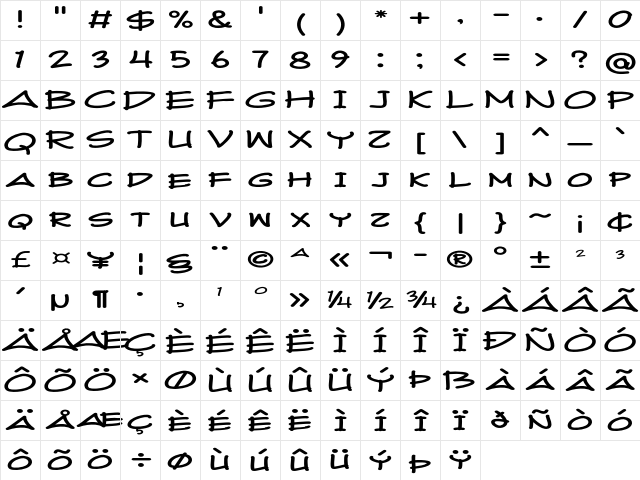
Fuki Maki Extra-expanded Regular Free Font
Fuki Maki Extra-expanded Regular
Style: Extra-expanded Regular
Fuki Maki Family
Fuki Maki Extra-expanded Regular
Design Context for Fuki Maki
Fuki Maki is a composed and adaptable typeface that performs quietly and consistently across a wide range of design contexts.